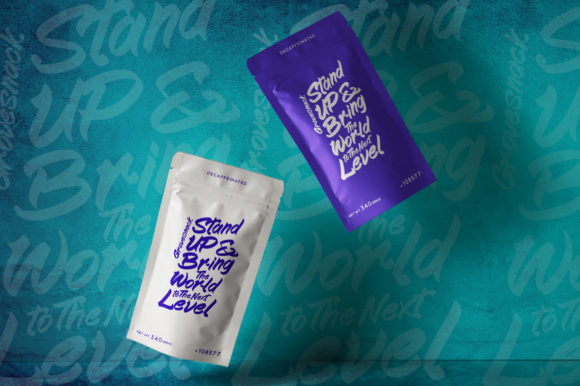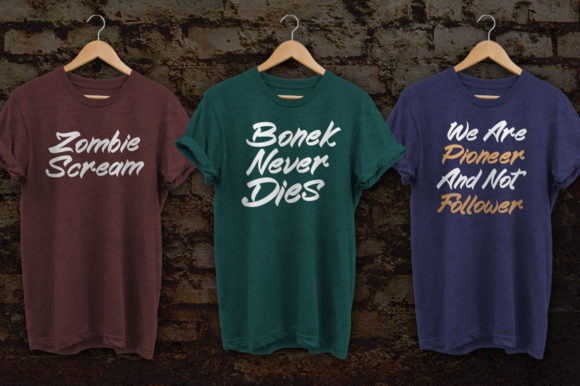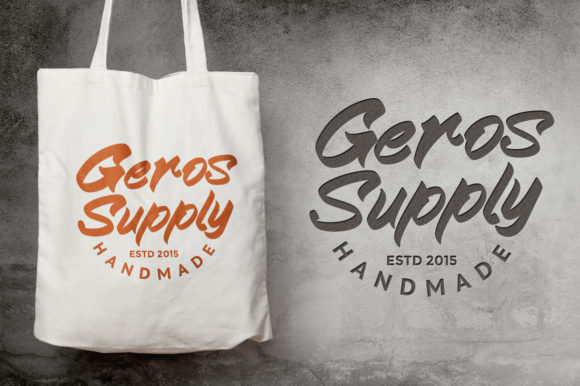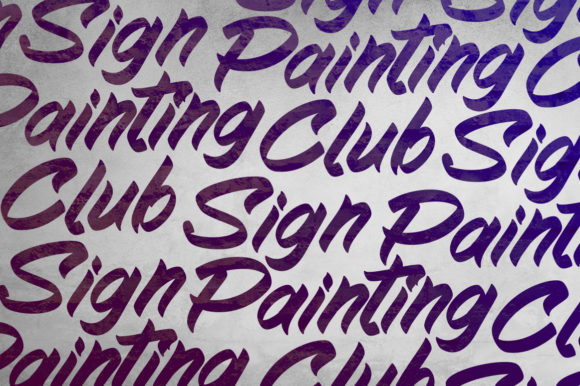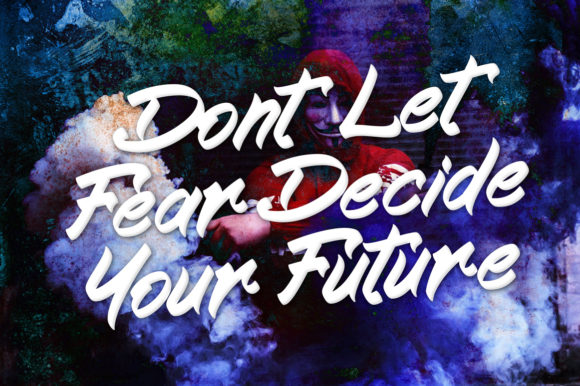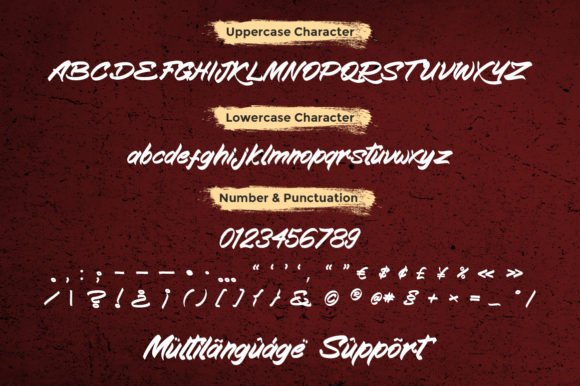
Introduction to Kampiun Samgor Font
Kampiun Samgor is a casual script font with hand-lettering style.
Great for a variety of projects .
Key Features of Kampiun Samgor Font